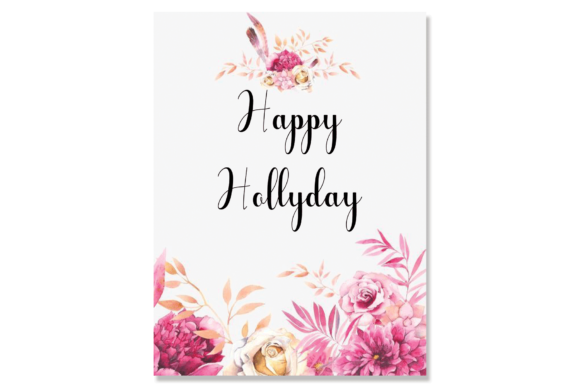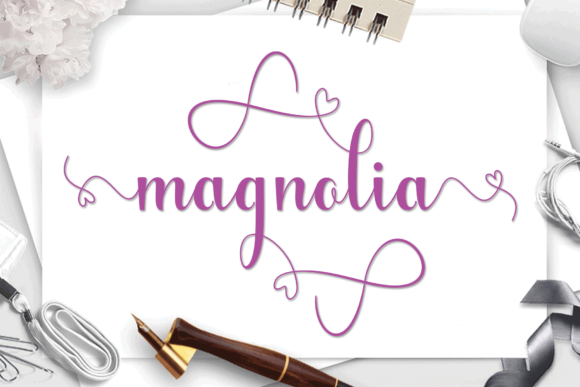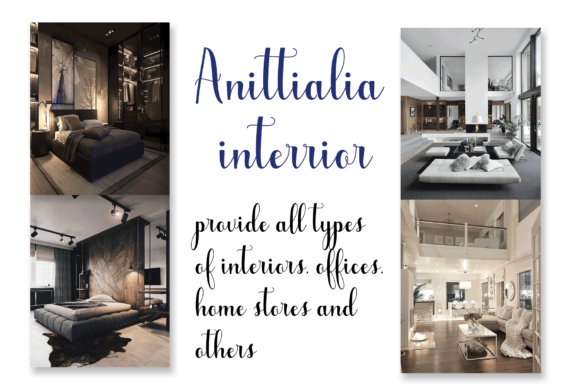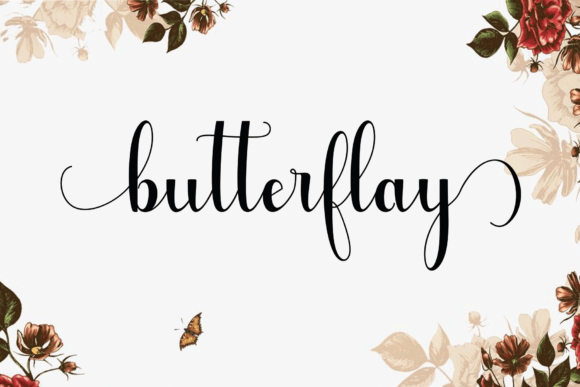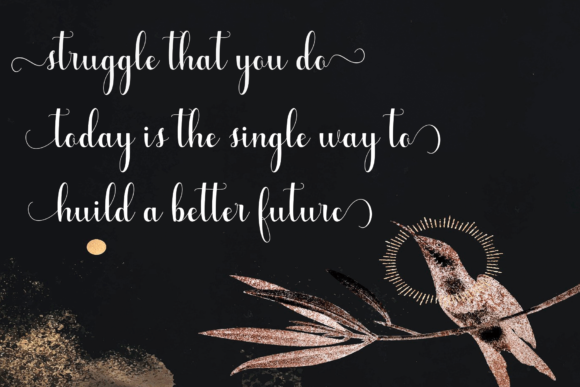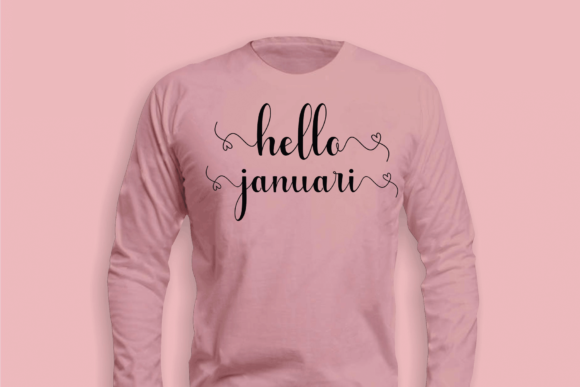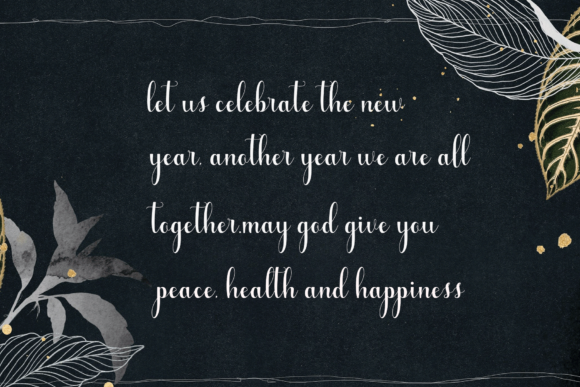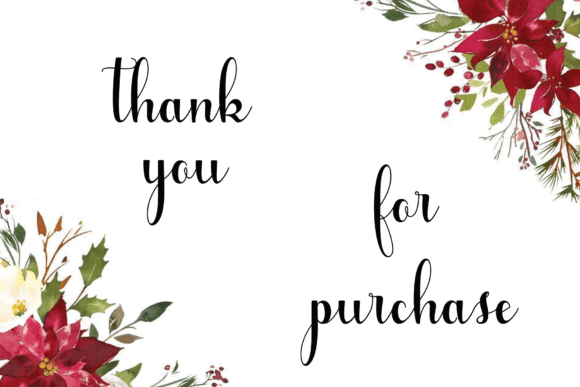
Delightful Font
About Delightful Font
Delightful is a friendly and modern script font with a unique style. Use it for any design project that requires a personalized appearance!